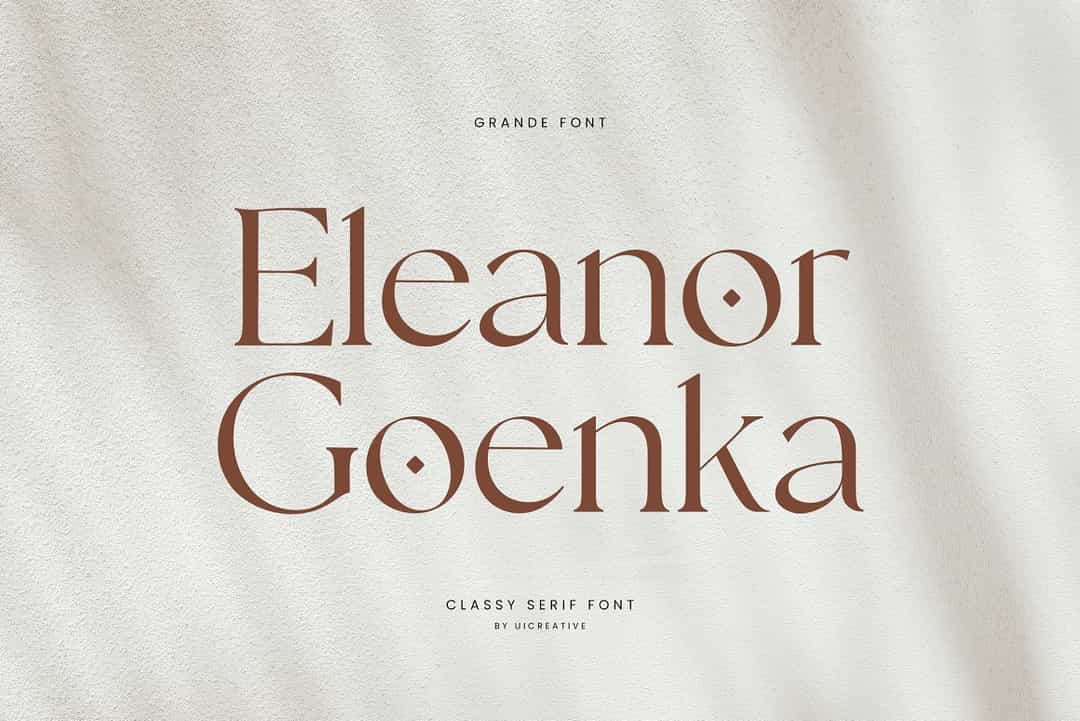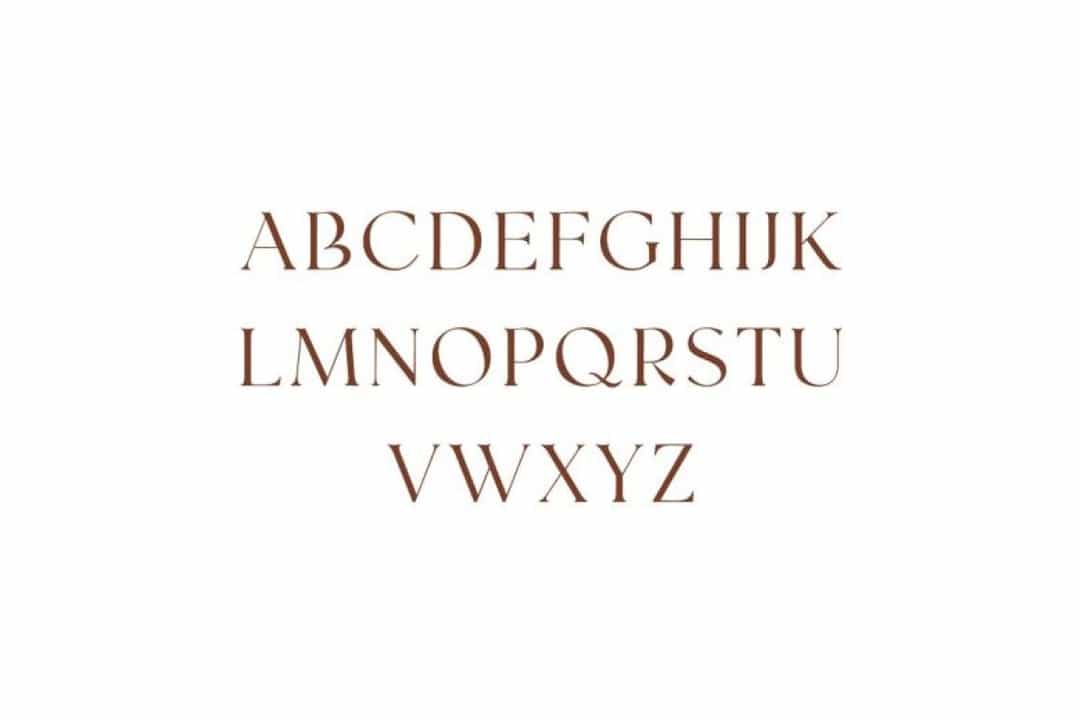
Eleanor Goenka is an elegant, classy and contemporary serif typeface perfect for stationary use, signatures, logo weddings, typography quotes, book or magazine covers, website headers, clothing packaging design, branding applications and much more.